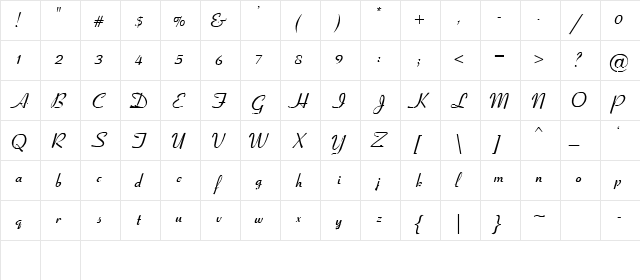
CLEAVER Regular
Design Context for CLEAVER Typeface
CLEAVER is a composed and adaptable typeface that performs quietly and consistently across a wide range of design contexts.